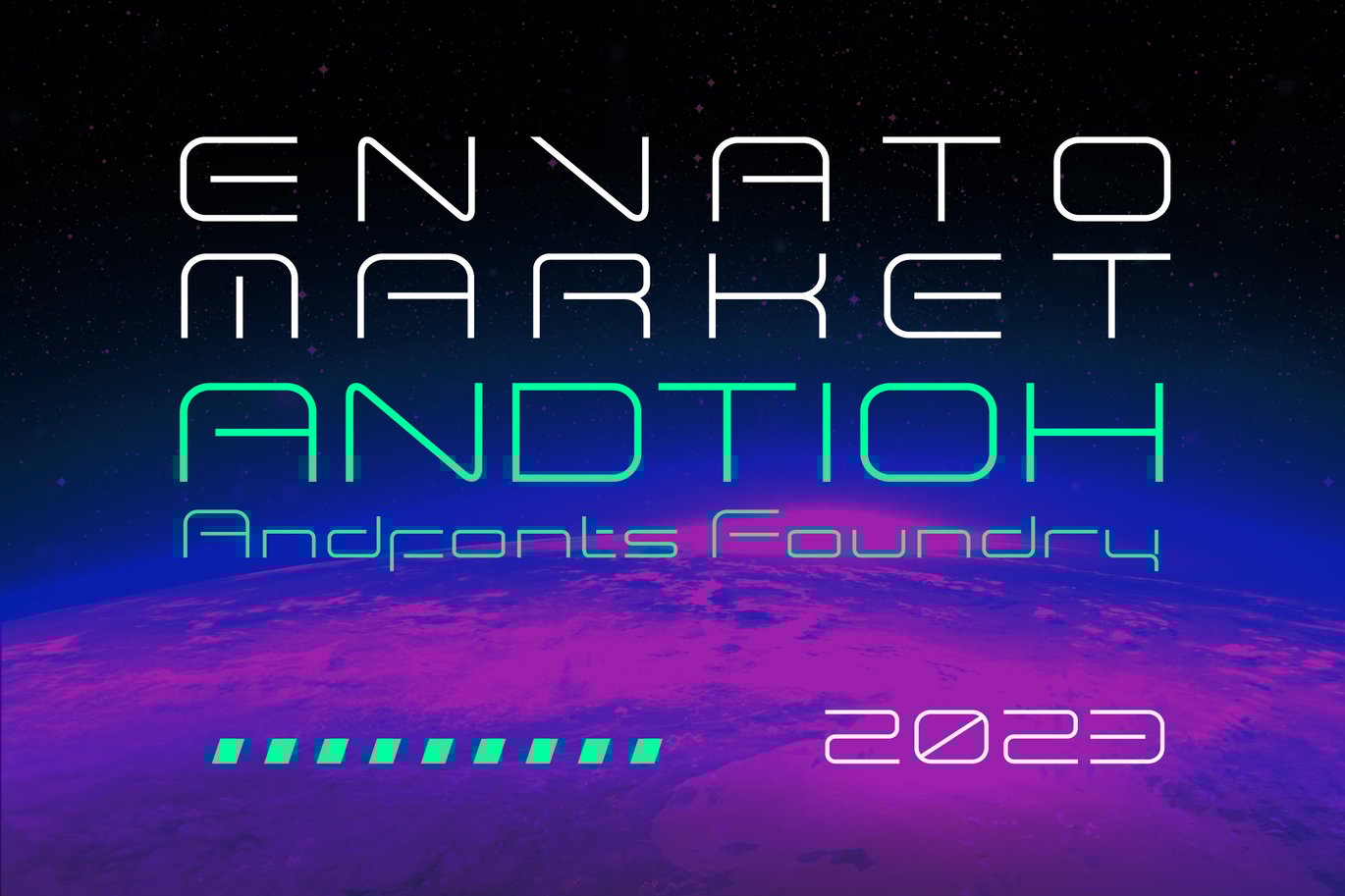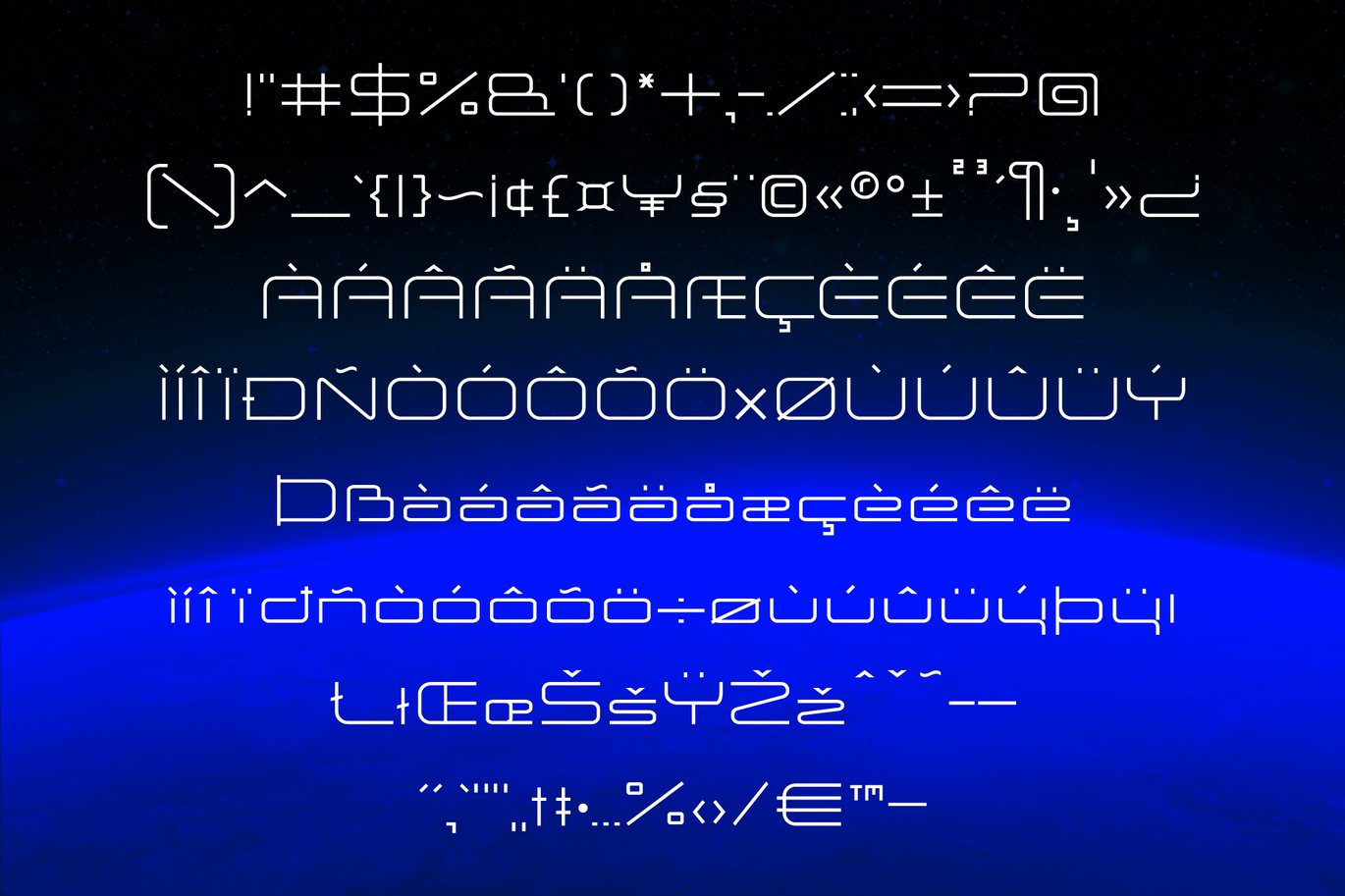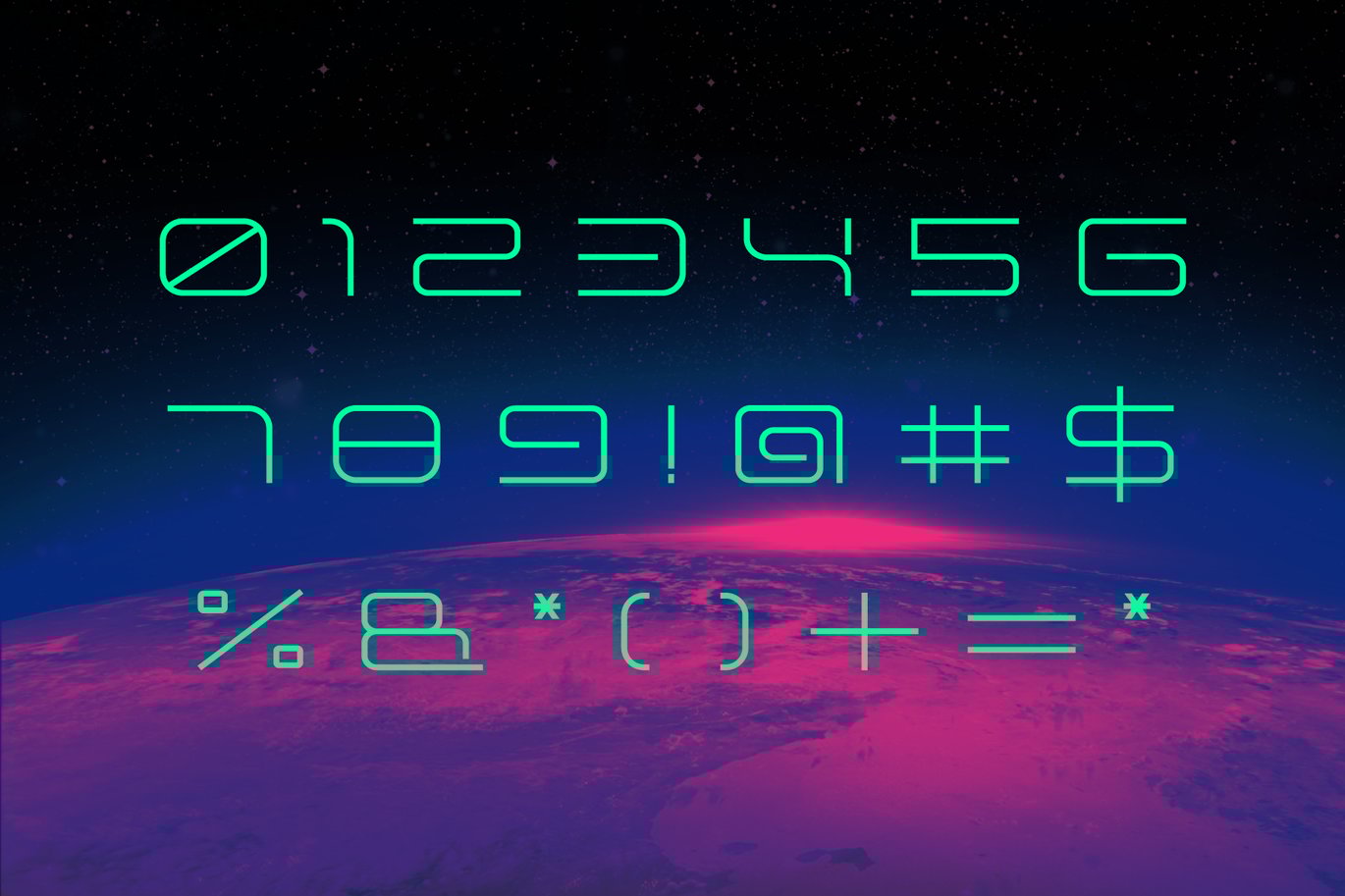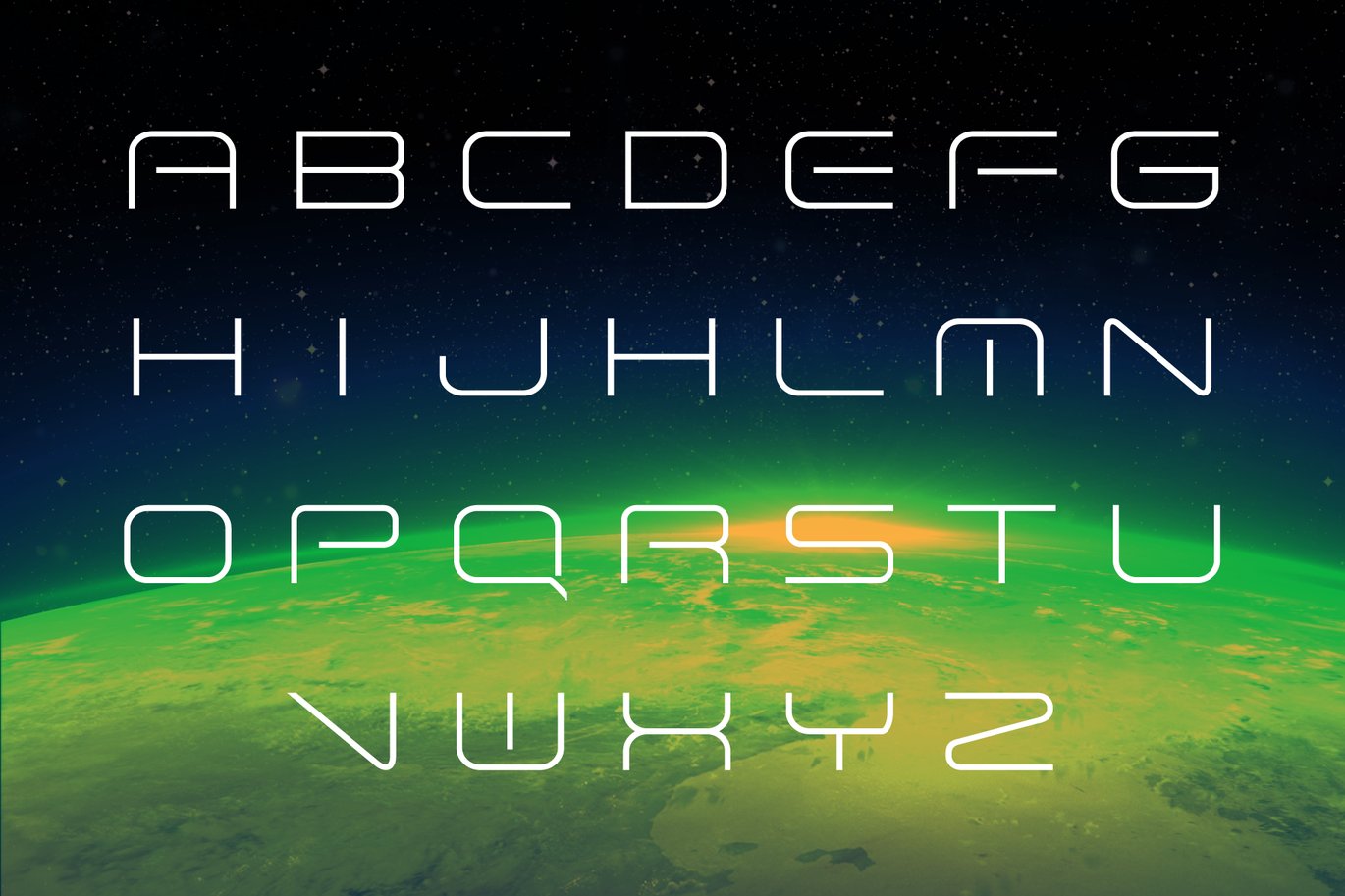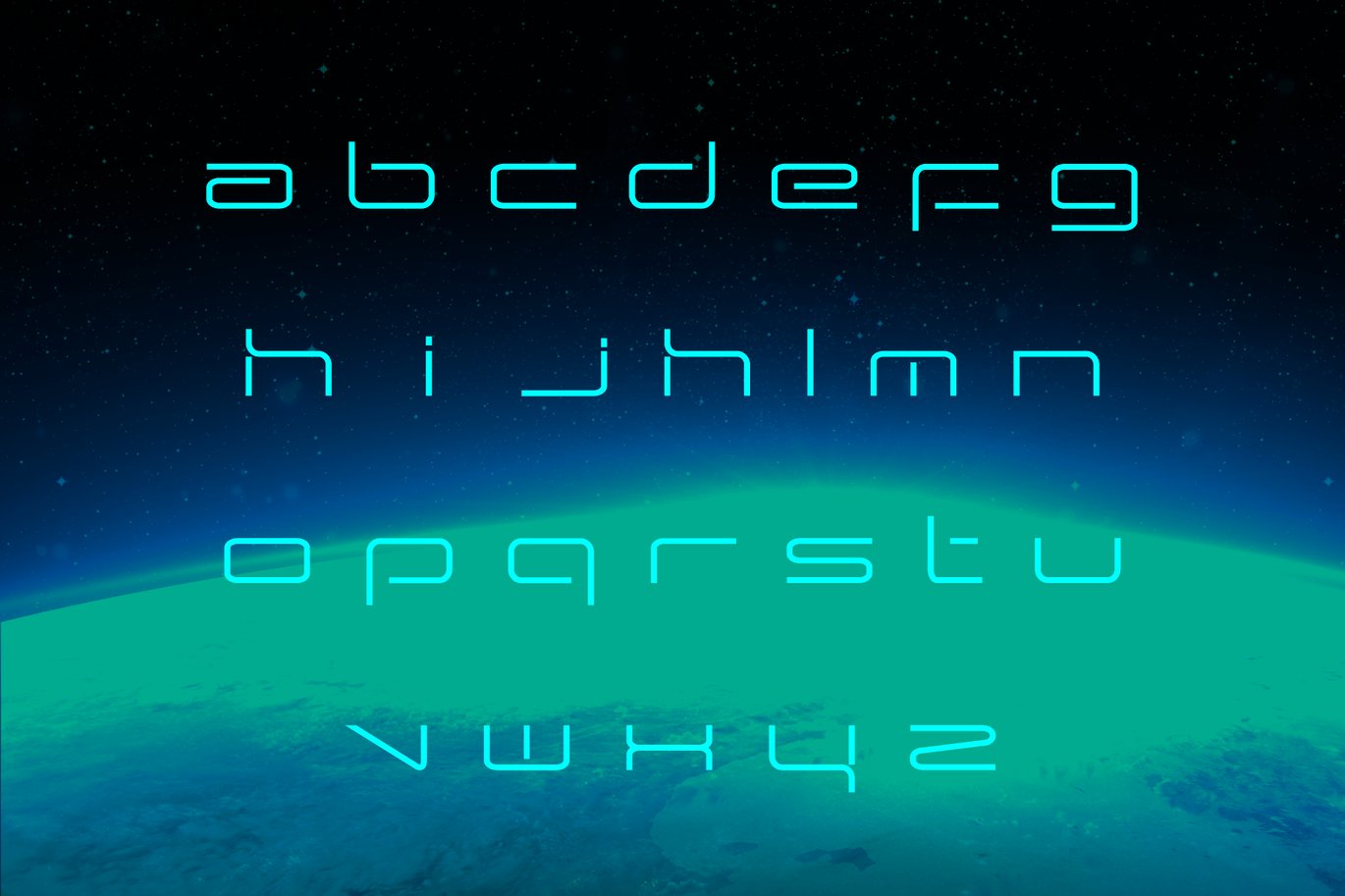
Andtioh-One Sci-fi font
Andtioh is a sci-fi font with a sleek and modern look that features thin, rounded letterforms. This font’s minimalist design is perfect for creating a futuristic feel that is both elegant and approachable.
The Andtioh font’s curves and soft edges create a sense of fluidity and motion, which is ideal for designs that require a more organic and natural look. Its thin strokes give it a delicate appearance that is perfect for designs that need a touch of subtlety and refinement.
Whether you are designing a logo, poster, or website, the Andtioh font is a great choice. It is versatile enough to be used in a range of designs, from more minimalist designs to more complex designs that require a sleek and futuristic touch.
With its modern design and soft, rounded letterforms, the Andtioh font is an excellent choice for any design project that requires a futuristic feel with a touch of elegance and sophistication. So why not give it a try and see how it can transform your designs?